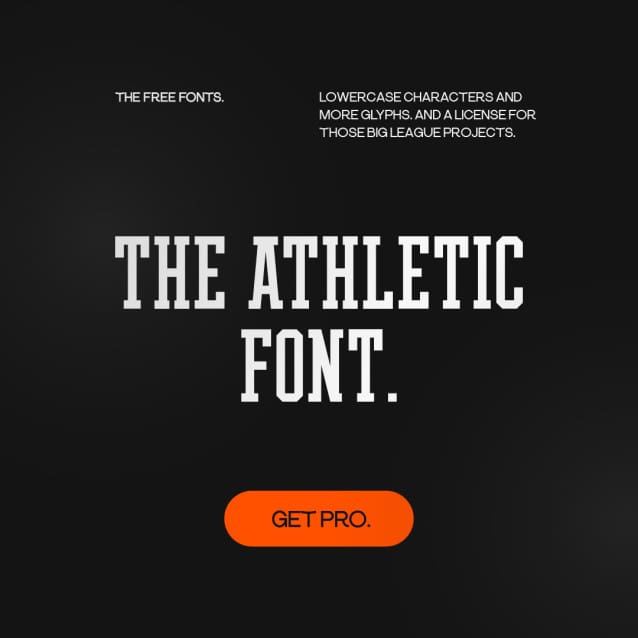
The Athletic Font
The Athletic Font, inspired by the jerseys of legends. with its bold baselines and sharp ascenders, this font shoots and scores every time. whether you\’re kerning your text for a header or adjusting the leading for that perfect fit, theathletic font is your mvp. edit this paragraph right here and you get a taste of the action right off the bat. lace up and give it a shot!